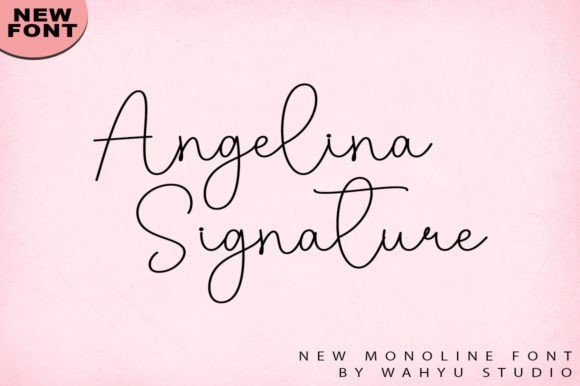
Introducing Angelina Signature: The Font That Will Make Your Designs Bloom
Craft captivating designs that exude elegance and charm with Angelina Signature, a script font meticulously crafted to ignite your creativity. Its graceful curves and flowing lines dance across your designs, evoking an aura of sophistication that's sure to leave a lasting impression. Whether you're weaving wedding invitations, crafting logos, or adding a personal touch to your branding materials, Angelina Signature is the perfect partner to bring your visions to life.
With Angelina Signature, you can:
- Enchant your designs with its exquisite handwritten style that adds a touch of warmth and authenticity to your creations.
- Express your individuality through its versatile nature, suitable for a myriad of projects, from elegant invitations to captivating social media posts.
- Captivate your audience with its effortless flow, guiding their eyes through your designs with grace and ease.
- Make a statement with its PUA encoding, granting you access to a treasure trove of glyphs and swashes that elevate your designs to new heights.
Unlock the beauty of Angelina Signature and transform your designs into masterpieces that radiate charm and sophistication. Let this font be your muse as you craft designs that capture hearts and leave an indelible mark on your audience.